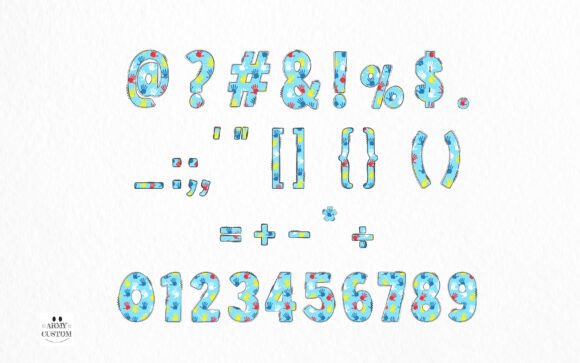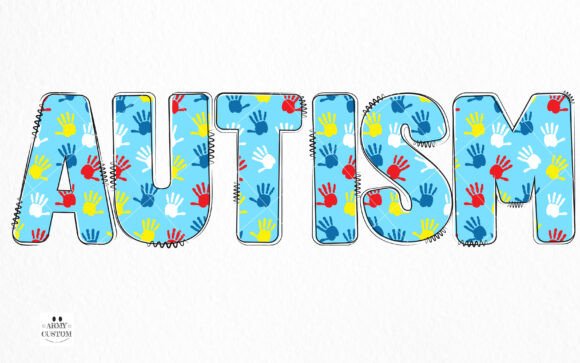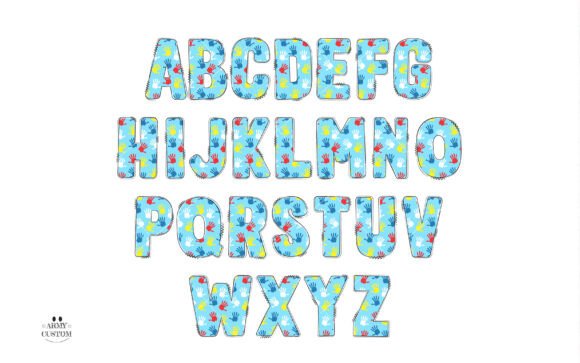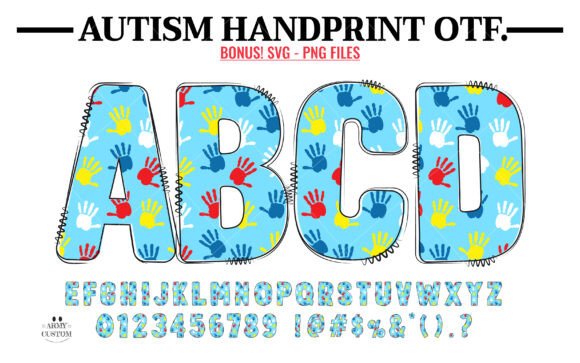
The Power of Autism Handprint Font: A Designer’s Best Friend
I still remember the exact moment I stumbled upon the Autism Handprint font. I was working on a project for a client who wanted to create a custom t-shirt design for Autism Awareness Month. As I scrolled through font after font, nothing seemed quite right. That was until I saw it – a bold, vibrant font filled with colorful handprints. It was love at first sight! 💕
The Autism Handprint font is more than just a pretty design; it’s a statement piece. It’s a way to show support and unity for the autism community, and it’s perfect for a variety of projects, from educational materials to creative advocacy campaigns.
- ✨ The bold, eye-catching design that’s sure to grab attention
- ✅ The colorful handprints that add a fun and playful touch
While the Autism Handprint font is amazing, there are a few things to keep in mind. 🤔 For example, the font can be a bit tricky to work with in certain design programs. Additionally, some users may find that the handprints can be a bit overwhelming if not used carefully. ⚠️ However, with a little practice and patience, these limitations can easily be overcome.
The Story Behind Autism Handprint Font
The Autism Handprint font was designed with love and care by a team of designers who wanted to create a unique and meaningful way to show support for the autism community. The font features bold letters filled with colorful handprints, representing unity, awareness, and love. The design team was inspired by the idea of handprints as a symbol of connection and community, and they hope that the font will be used to spread love and acceptance.
A: The Autism Handprint font is a vibrant and meaningful display font that features bold letters filled with colorful handprints, representing unity, awareness, and love.
A: The Autism Handprint font is perfect for Autism Awareness Month projects, educational materials, classroom decor, posters, t-shirts, and creative advocacy campaigns.